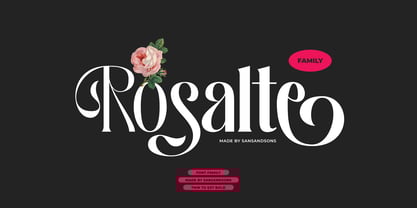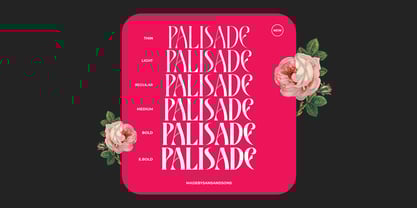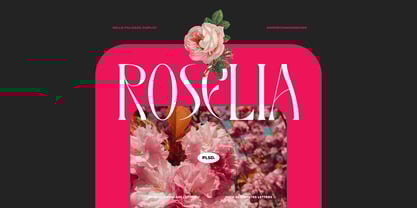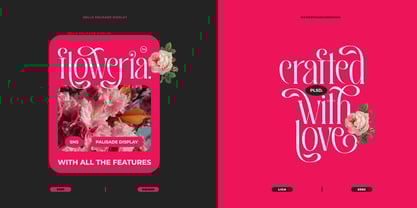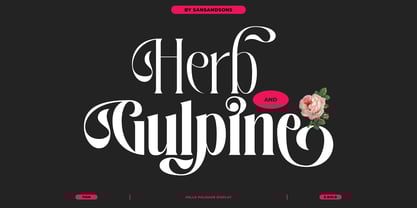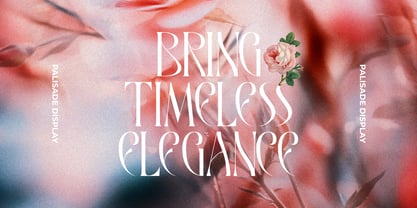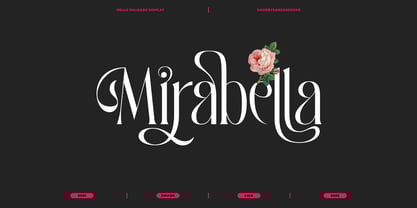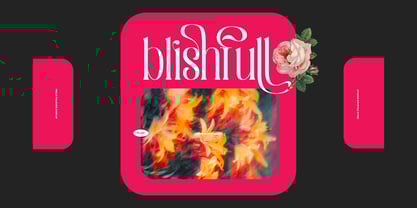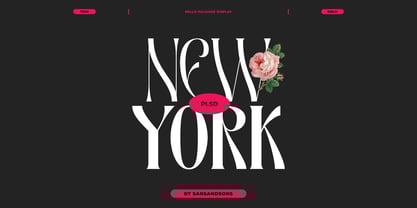
Rosalte
by Sans And Sons
The Rosalte Font Family was designed by Angga Suwista and published by Sans And Sons. Rosalte contains 6 styles.
Introducing Rosalte Family — a font that’s all about making a statement, from its delicate thin style to its bold, attention-grabbing extra-bold.
Designed for those who appreciate a touch of sophistication with a modern twist, this font family is perfect for branding, social media, packaging, and everything in between. The thin styles add a touch of elegance and airiness, while the heavier weights bring power and personality.
Whether you’re creating a sleek logo, stylish magazine cover, or standout social post, Hello Palisade has you covered. It’s a versatile typeface that’s ready to elevate your design game with just the right balance of style and substance.